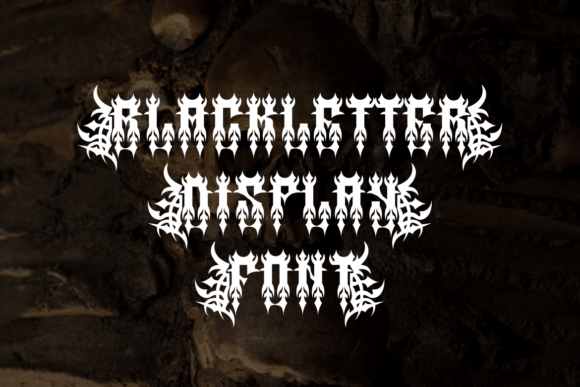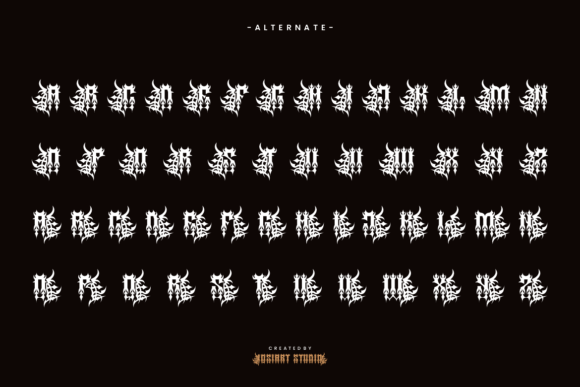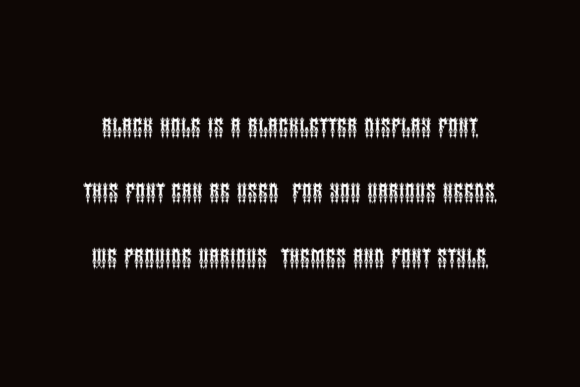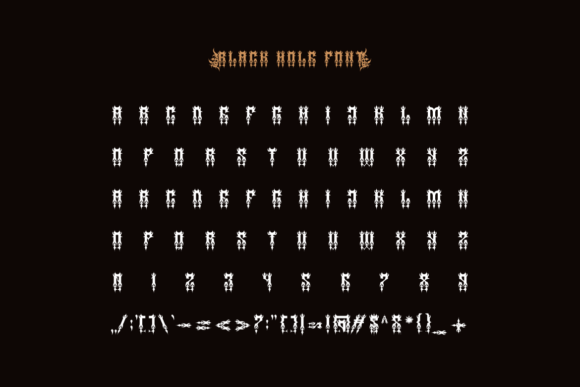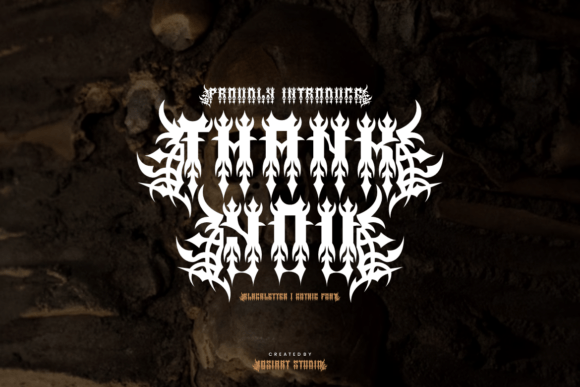
Unleash the Fury: Introducing Black Hole Font
In the realm of typography, few fonts evoke the same level of intensity and aggression as Black Hole Font. Specifically designed for heavy metal bands, extreme branding, and dark art, this bold blackletter font is the epitome of raw power and dramatic impact. With its blazing flame-like strokes and strong gothic influence, Black Hole Font commands attention and demands to be noticed.
The Birth of a Beast: Design and Inspiration
Black Hole Font was born from the depths of creativity, inspired by the dark and aggressive aesthetics of heavy metal music and the mysterious allure of black holes. Its design is characterized by intense, sharp lines and bold, gothic strokes that seem to dance with a fiery energy. Each letter is meticulously crafted to convey a sense of power and rebellion, making it the perfect choice for projects that require a strong visual statement.
Key Features and Applications
- Intense and Aggressive Style: Black Hole Font boasts a uniquely stylized blackletter design that exudes aggression and intensity, ideal for heavy metal bands and extreme branding.
- Blazing Flame-like Strokes: The font’s flame-like strokes add a dynamic and fiery feel to any project, from album covers to merchandise designs.
- Bold Gothic Influence: With its strong gothic roots, Black Hole Font brings a sense of mystery and raw power to your designs.
- Versatile Applications: Beyond album covers and merchandise, this font is also perfect for tattoo designs, dark art projects, and any creative endeavor that craves dramatic impact.
Why Choose Black Hole Font?
For designers and crafters looking to make a bold statement, Black Hole Font offers a unique combination of style and impact. Here are a few reasons why it stands out:
- Uniqueness: In a sea of generic fonts, Black Hole Font offers a distinctive look that can set your project apart from the rest.
- Expressive Freedom: The font’s aggressive style gives you the freedom to express bold ideas and themes without restraint.
- Attention-Grabbing: Whether on an album cover, a piece of merchandise, or a tattoo design, Black Hole Font is guaranteed to grab attention and leave a lasting impression.
Tips for Using Black Hole Font
To maximize the impact of Black Hole Font, consider the following tips:
- Pair with Contrasting Fonts: Combine Black Hole Font with simpler, cleaner fonts to create a striking contrast that enhances readability and visual appeal.
- Experiment with Colors: While the font’s bold strokes are undeniably striking in black, don’t be afraid to experiment with other colors, especially those that reflect the mood and theme of your project.
- Consider Size and Placement: The bold nature of Black Hole Font means it can be effectively used at various sizes. However, for maximum impact, consider using it as a headline or focal point in your design.
Black Hole Font is more than just a typeface; it’s a statement of intent. Designed for those who dare to be different, it offers a powerful tool for expressing the most intense and aggressive ideas. Whether you’re a designer looking to elevate your project or a crafter seeking to make a bold statement, Black Hole Font is your gateway to creating visually stunning and impactful designs. Unleash its fury and watch your creations leave a lasting impression.